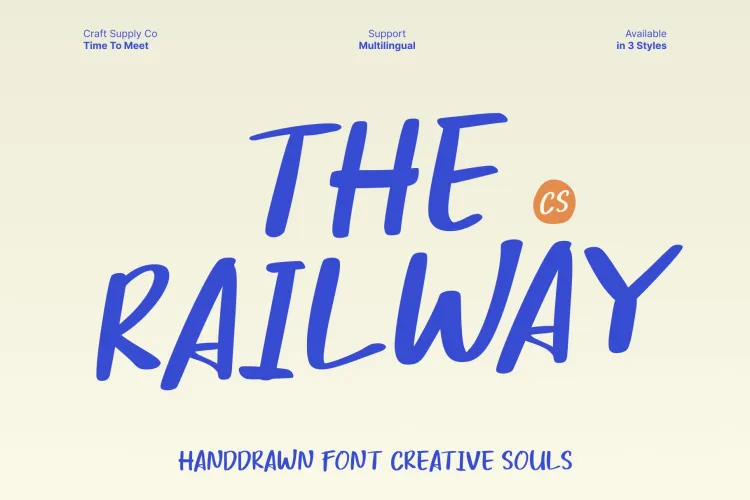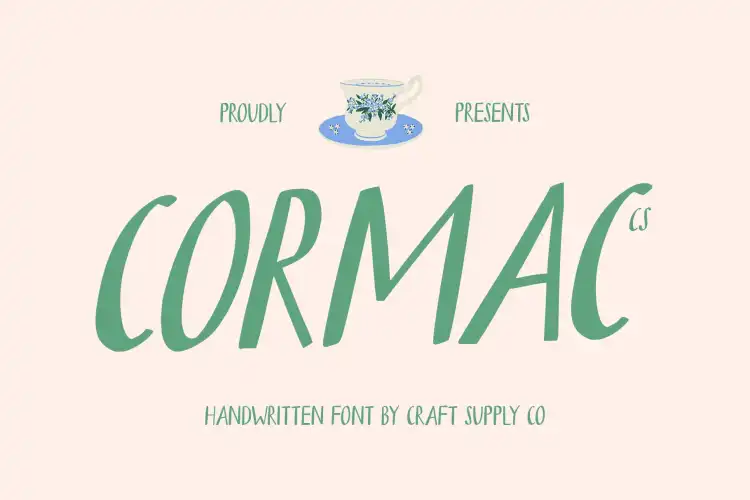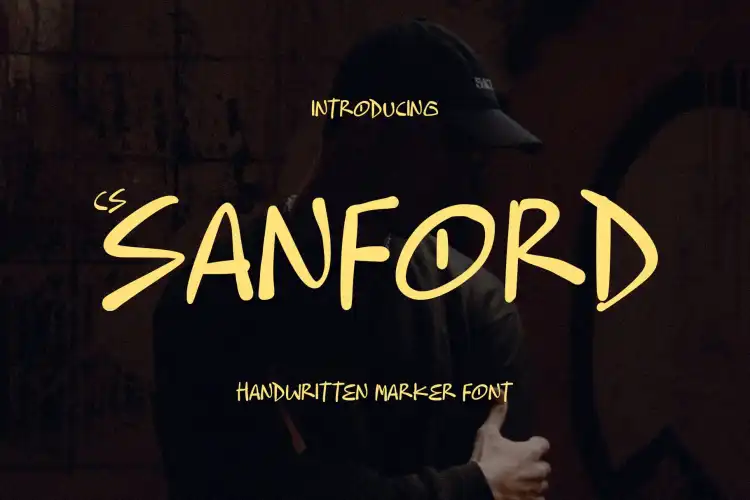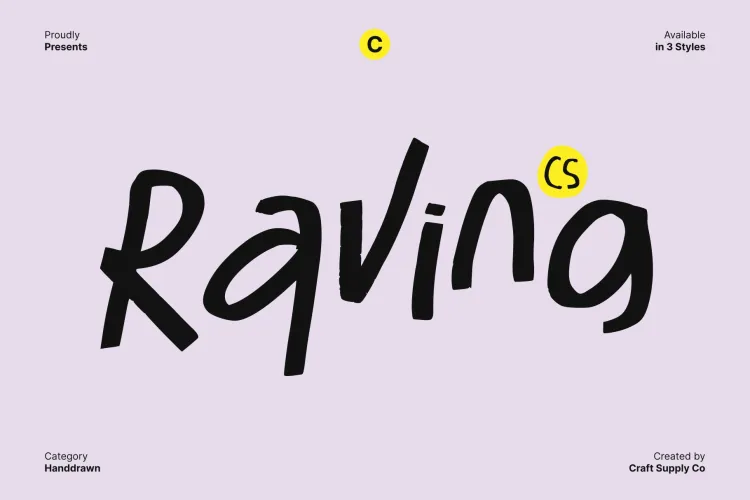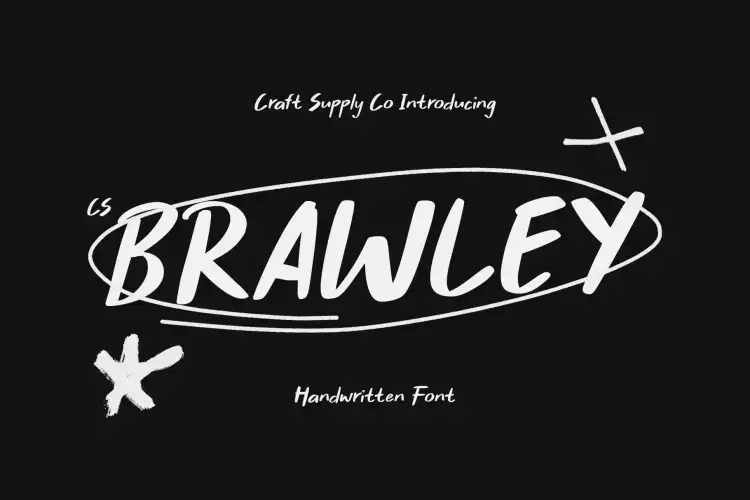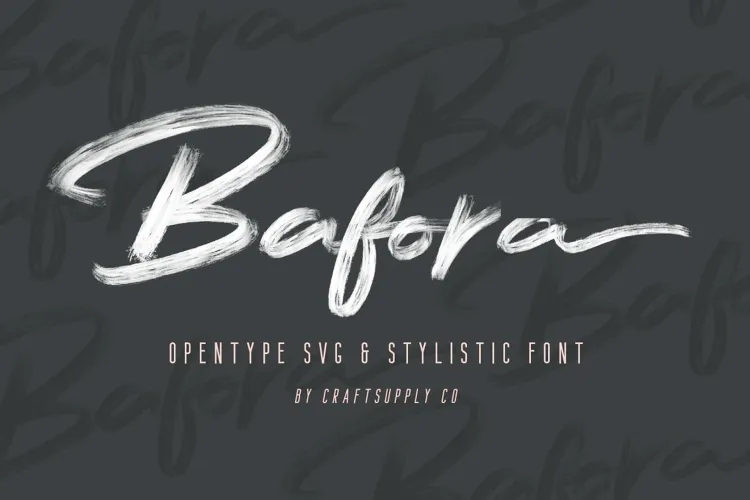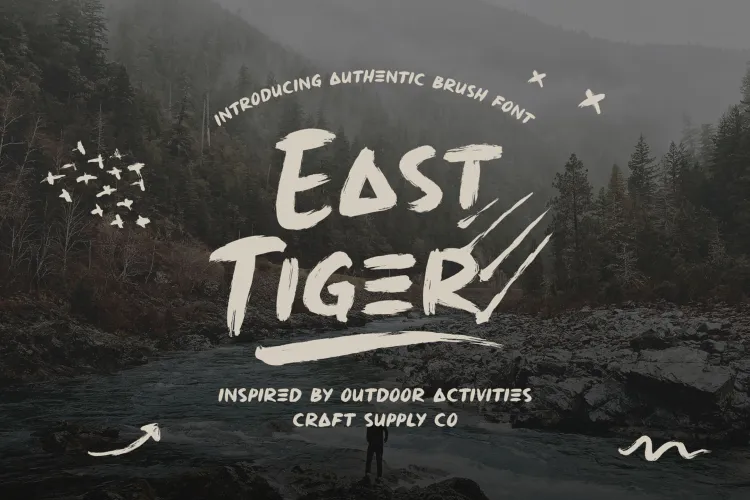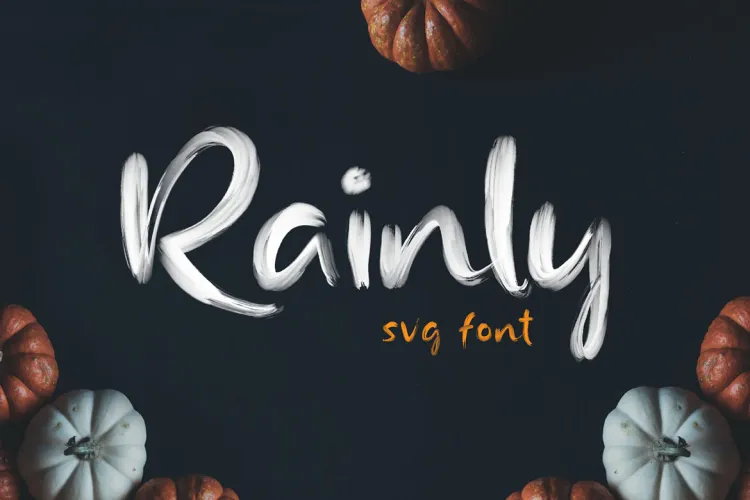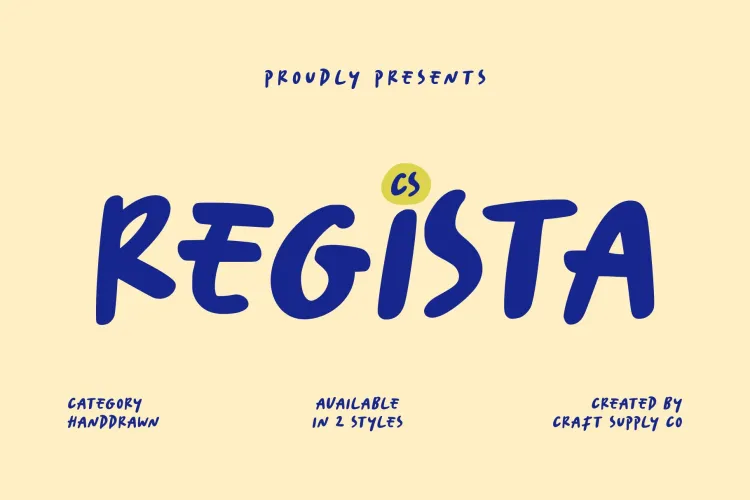
Melanie C – Sweat Font Recommendations for Dynamic, Expressive, and Human Album
Melanie C – Sweat font recommendations are all about energy, movement, and personal expression. The album title Sweat evokes effort, passion, and visceral intensity—qualities that can be mirrored powerfully in typography. Whether it’s the physicality of dance-pop rhythms or the emotional effort of searching for one’s identity, the typefaces you choose play a central role in communicating these ideas visually.
This album’s visual identity should feel dynamic, tactile, and expressive, as though each letter has been stamped, brushed, or handwritten directly onto the canvas. That’s why this article highlights fonts that feel alive through organic textures, imperfect strokes, and human character. These fonts work beautifully for album covers, digital releases, promotional posters, merchandise, and interactive social content.
Defining the Visual Mood of Sweat
Sweat feels both immediate and human. The album name suggests effort, motion, intimacy, and raw emotion. The visual elements supporting this music should communicate texture and realism, reflecting personal storytelling through type. Clean, static typography wouldn’t do justice to the kinetic emotional qualities that the album title evokes. Instead, marker-style, brush, and hand-rendered fonts provide energy and personality.
Typography inspired by this album should:
• Feel energetic and alive
• Communicate personality and emotion
• Balance impact with readability
• Work across digital and print designs
The following Melanie C – Sweat font recommendations are selected to help designers create visuals that move and breathe—just like the music itself.
Font Recommendations for Melanie C – Sweat
1. CS Railway Marker Font
CS Railway Marker Font brings raw, hand-drawn marker energy to headlines and titles. Its dynamic strokes feel spontaneous, making it perfect for album covers and promotional text that needs to evoke immediacy and bold personality.
2. CS Cormac Marker Font
CS Cormac Marker Font combines strong, confident lines with slightly irregular texture. This makes it excellent for bold visual statements where the text feels physically present and expressive.
3. CS Sanford Ink Font
CS Sanford Ink Font delivers rich strokes that feel like they were applied directly with a felt tip pen. Its textured presence adds a sense of visceral authenticity, ideal for designs that embody physical effort and emotional intensity.
4. CS Raving Messy Handwritten Font
CS Raving Messy Handwritten Font features irregular, high-energy strokes that mirror lived emotion. It’s perfect for expressive lyric visuals, personal quotes, or any text that needs to feel close and raw.
5. CS Brawley Marker Font
CS Brawley Marker Font feels bold and textured. Its marker-style design adds graphic grit to titles and graphics, reinforcing the high-energy feel suggested by the album’s title.
6. Busten Handwritten Brush Font
Busten Handwritten Brush Font delivers expressive brush strokes that feel fluid and alive. Its natural movement enhances any layout that needs emotional depth and artistic flair.
7. Bafora SVG Font Bonus
Bafora SVG Font Bonus introduces color and texture options, adding playful customization to your typography. It works fantastically for digital-first visuals where dimension and interaction are key.
8. East Tiger Authentic Brush Font
East Tiger Authentic Brush Font brings raw hand-painted strokes that feel both expressive and energetic. It’s ideal for high-impact headlines and design elements that demand attention and emotion.
9. Rainly Brush SVG Font
Rainly Brush SVG Font introduces even more artistic texture with SVG brush detailing, making each letter feel crafted by hand. This font elevates visuals, especially for album artwork and expressive campaign designs.
10. CS Regista Handwritten Font
CS Regista Handwritten Font delivers a polished yet personal handwriting style. Its readable strokes make it perfect for supporting text, captions, and introspective lyric visuals that need human warmth.
How to Use These Fonts Effectively
To make the most of these Melanie C – Sweat font recommendations, designers should focus on pairing expressive font styles with clean supporting elements, allowing the typography to communicate emotion without overwhelming the layout.
• Use marker and brush fonts for headlines and key statements to emphasize energy and personality.
• Pair expressive text with minimal sans-serif or neutral supporting fonts for balance.
• Layer brush or hand-drawn fonts with subtle textures or backgrounds to enhance depth.
• Experiment with scale to emphasize movement and visual rhythm.
Expressive fonts work best when they maintain hierarchy and clarity, even in visually dynamic projects.